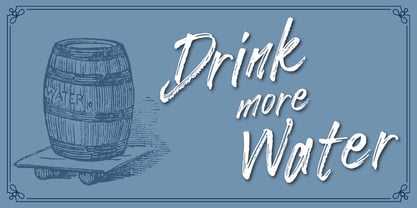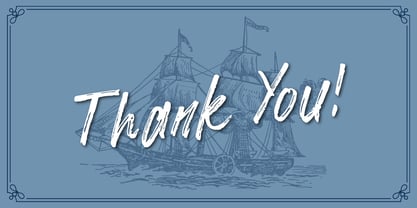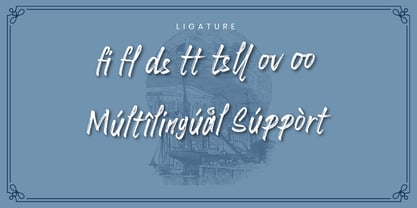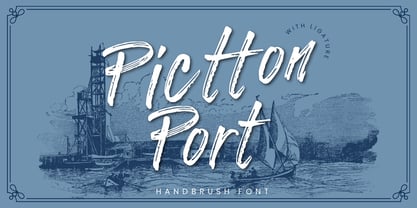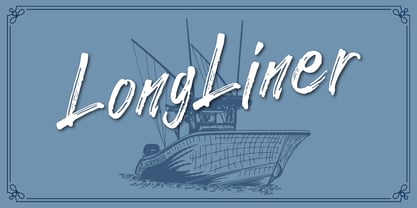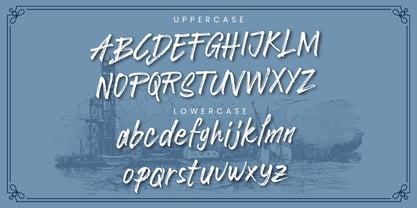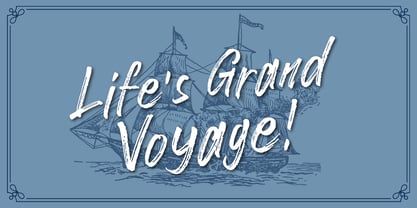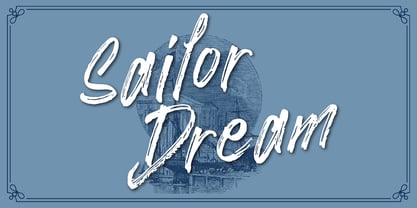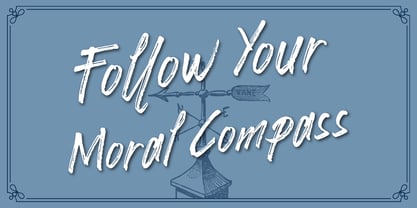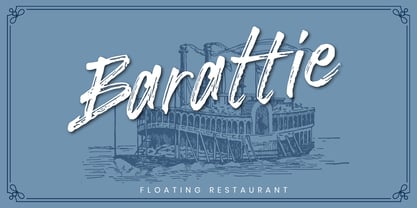
Pictton Port
by Attype Studio
Pictton Port - Vintage Handbrush Font
Pictton Port is a vintage handbrush script font that captures the raw, textured feel of a hand-painted signboard from an old fishing harbor.
Every stroke carries visible brush texture and natural inconsistency, giving your designs an authentic, weathered character that a clean digital script can't fake.
Perfect for:
Seafood and waterfront restaurant branding, boat names and marine business logos, vintage-inspired quote designs and wall art, nautical and coastal apparel graphics, craft beverage or label design with a rustic feel, travel and adventure brand identities, and vintage poster or postcard-style illustrations.
Designers: Fadli Ramadhan Iskandar
Foundry: Attype Studio